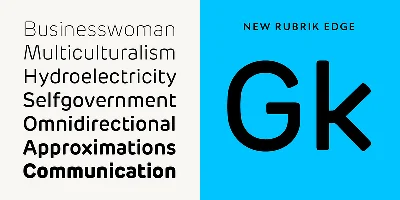
New Rubrik Edge Font
New Rubrik Edge Font is a modern, sleek sans-serif typeface with sharp edges and a strong, professional presence. Designed for high-impact design projects, this font is perfect for branding, editorial design, digital interfaces, posters, and anything requiring a contemporary and stylish type solution.
New Rubrik Edge Font features clean, geometric letterforms with a subtle edge that adds an extra layer of sophistication and boldness to your designs. Its versatility allows it to perform well in both display text and body copy, ensuring clarity while maintaining a strong visual presence.
Whether you're working on a tech brand, modern advertising, or creating sleek marketing materials, New Rubrik Edge brings a cutting-edge look to your typography.